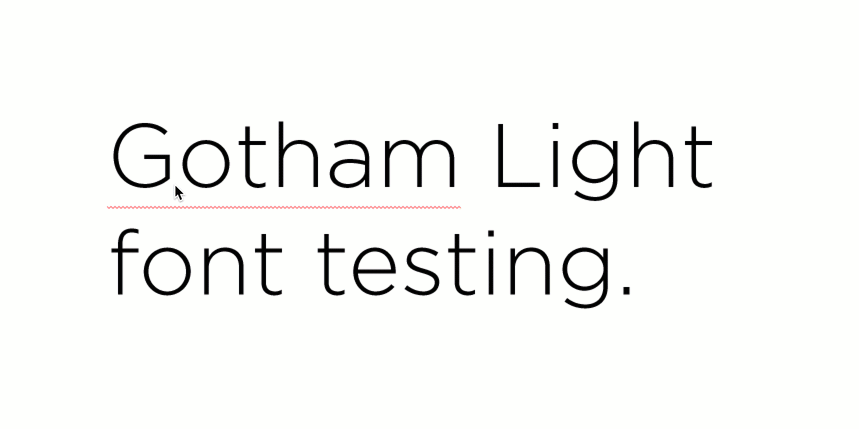
Font weight issue
Actually, it's different between Gotham bold and Gotham Light bold. Gotham Light is really very Light so the bolded Gotham light looks lighter than other regular font. I've tried with another PC and it works well(image attached). BUt il's not working on my main PC even after the diagnosis on the desktop app. I've tried to reinstall storyline and the font, it's not working. :(
Thank you for following up with these details! Have you tried uninstalling and reinstalling the font?
Yes I've tried uninstalling and reinstalling the font.
I downloaded the Gotham Light font, and did a quick test enabling Bold formatting on a couple of the words and I'm seeing a difference between the two:
Since you mention this doesn't happen on your other computer, I'd like to test the font in a different application. I've attached a Word document as well as my sample .story file. Can you let me know how things look on your end?
Thank you for sending me the two exemples, Becca. It works on Word but not with storyline. It looks like this bug happens just with the storyline on my primary device.